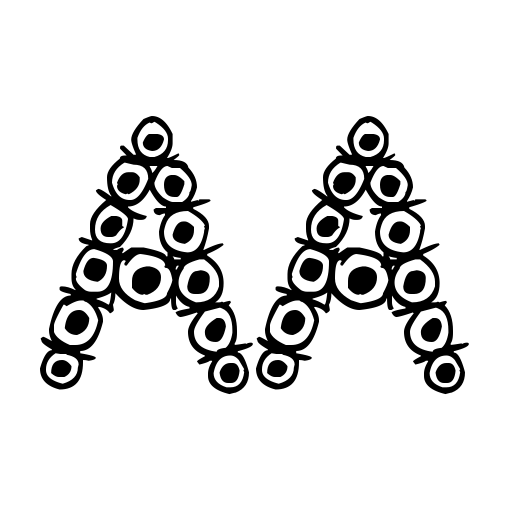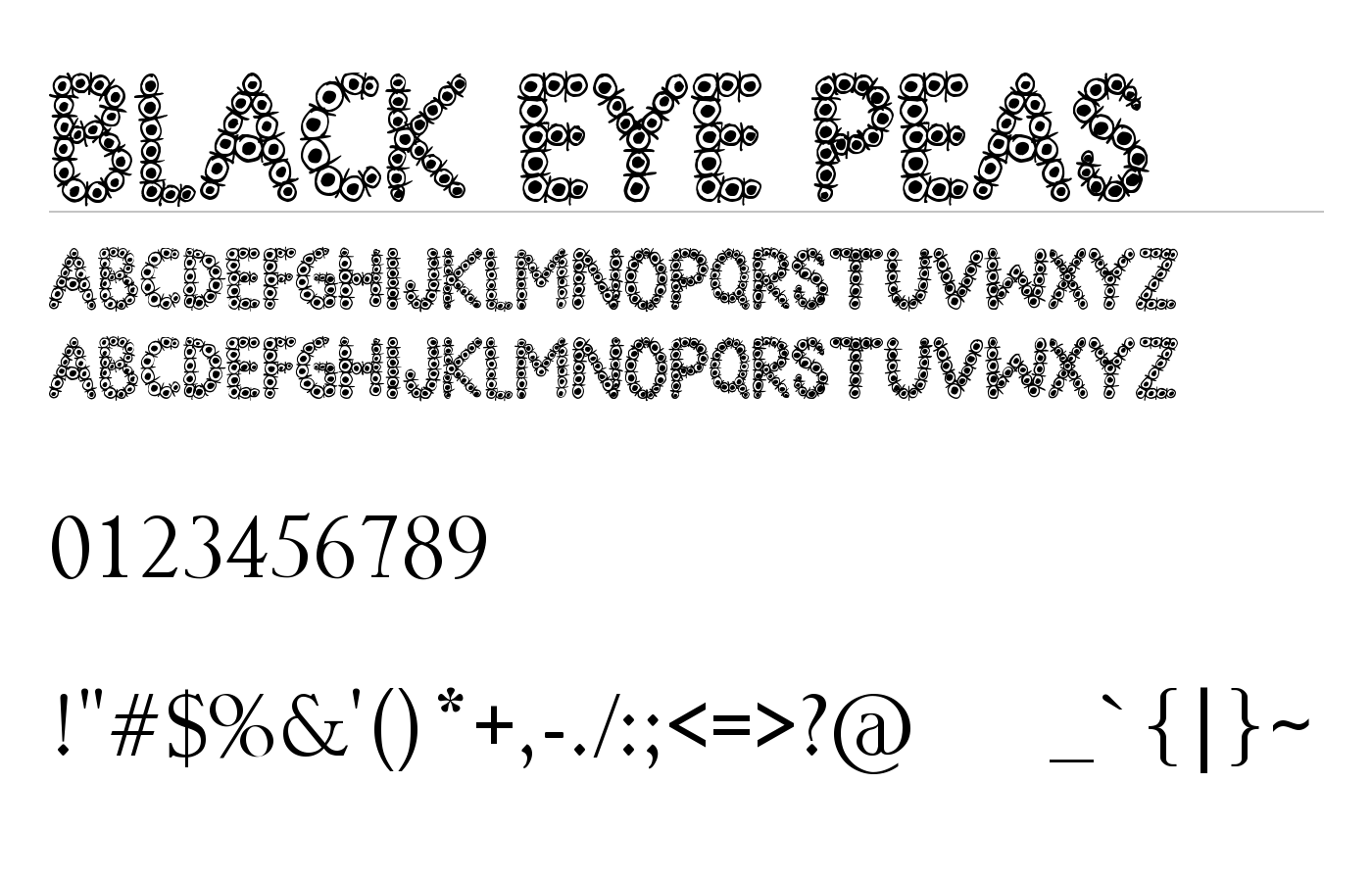
Black Eye Peas Font is a playful and eye-catching display typeface formed by clustered circular shapes that give it a quirky, fun personality. It features uppercase letters with a whimsical, almost hand-crafted feel, making it perfect for creative branding, children’s designs, or any project that needs a bold and lively look. This font works best for headlines, logos, and playful packaging where unique visual impact is key.
Black Eye Peas Font
About Black Eye Peas Font